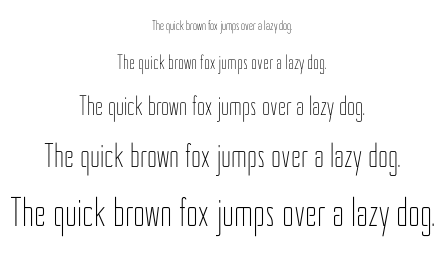
Shket is a modern sans serif designed to be used at big point sizes, for example in spread headers or posters. Unlike many of the fonts that are given for free, Shket offers a pretty big charset that will cover many languages and symbols, making it ideal for any design job. As a designer myself I hate to see that the glyph I need is missing from the font, hopefully with Shket that won’t happen.